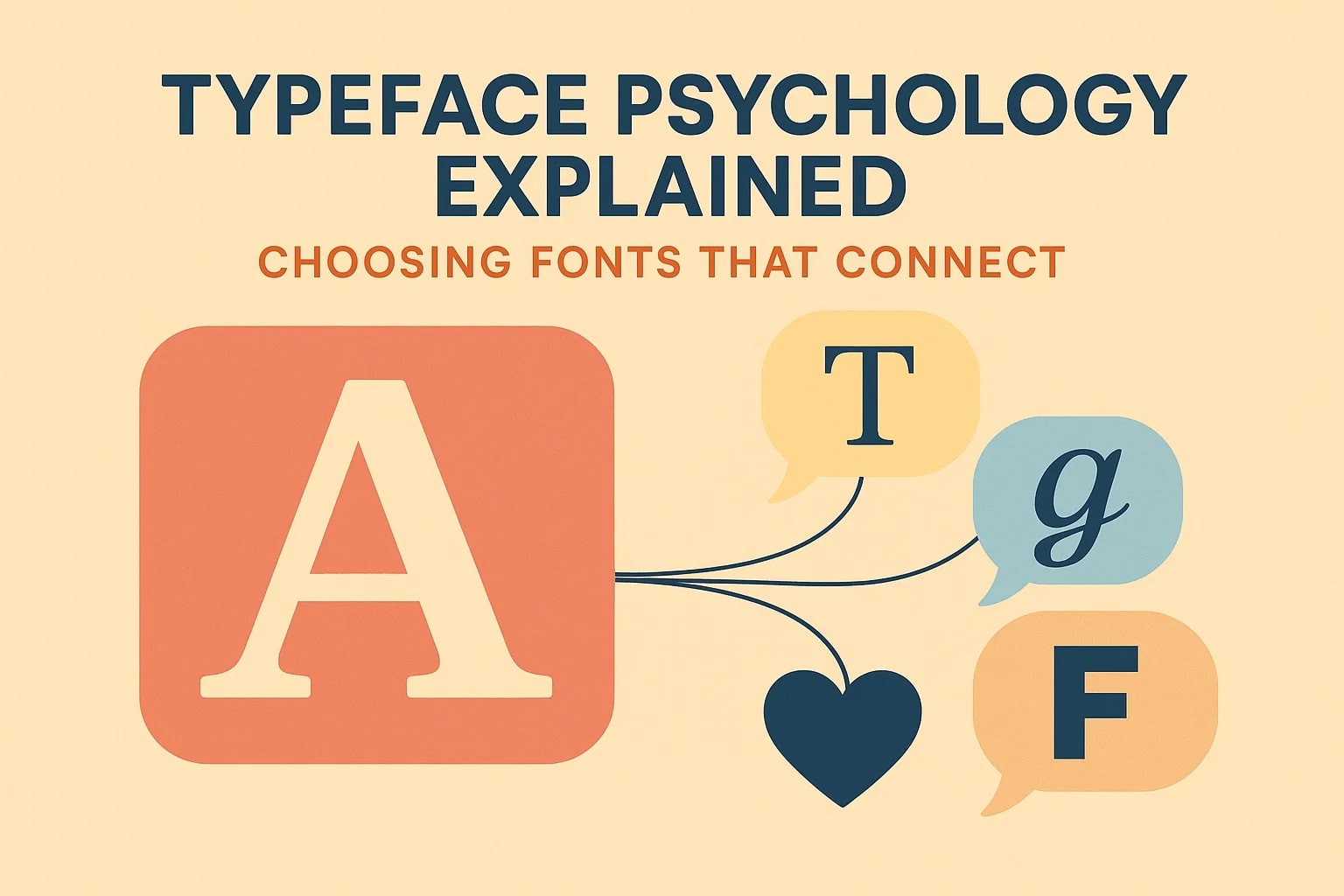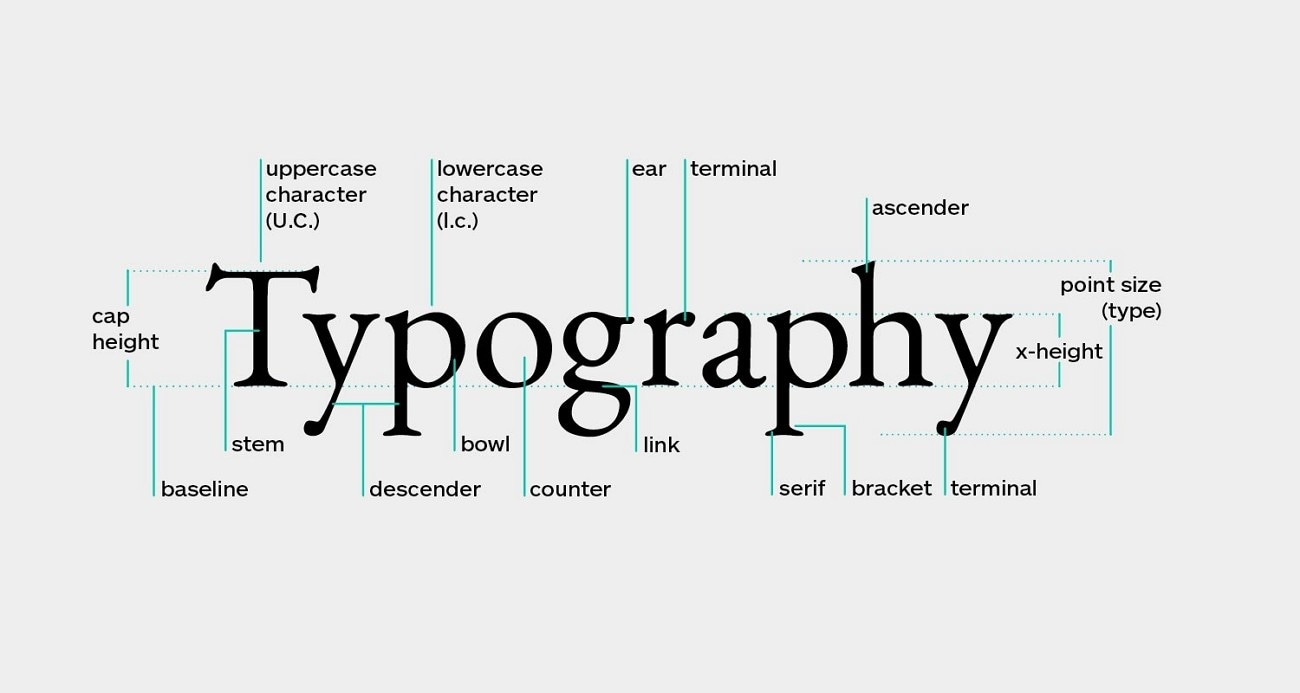
Understanding Typeface Psychology: How Fonts Influence Perception and Emotion
Understanding typeface psychology enables creators to subconsciously influence audience perception before a word is read by strategically matching font styles to core brand values.
● Choose Serif or Slab Serif fonts to establish trust and authority in traditional contexts, Sans-Serif for modern clarity in tech interfaces, and Handwritten or Script fonts to convey approachable warmth and elegance.
● Maximize readability and visual hierarchy by strictly limiting your design to a maximum of two contrasting text styles to prevent screen clutter.
Having an emotionless digital interface does not attract the desired audience. From the graphics to the text, every element in an interface has the ability to communicate. Selecting specific text designs can help you convey a message that nothing else can. By understanding the typeface psychology, we can leave an impact before the audience reads the text. The article below unlocks the powers of typeface psychology to help you communicate better.
Part 1. What is Font/Typography Psychology - The Evolution of Fonts
Just like colors trigger feelings, fonts can also make an impact. The study of how different typefaces affect a person is explored under the subject of font psychology. Typography psychology reveals that fonts are not neutral but are visuals that shape how we interpret messages. Fonts evolved from designs to key elements of conveying messages. Starting from the early 20th century, fonts have become a representative of many cultures and emotions.
Part 2. Why Does Typography Matter?
Typography serves many purposes beyond mere decoration. The following section explores the reasons why it is a key element in designing an interface:
1. First Impressions Last: Typography is often the first thing people notice about your content or brand, such as the style, size, and spacing of a font.
2. Makes a Brand that Stands Out: Fonts serve as a visual signature, making a brand recognizable and explaining its values.
3. Good for Legibility: A hard-to-read interface loses the audience's interest, but readable typography reduces strain and increases the likelihood of your audience absorbing the message.
4. Entices Emotions: The psychology of fonts carries hidden emotional cues that influence perception before the audience reads the text.
Part 3. Categories of Typefaces and Their Psychological Impact
To bring diversity into your interfaces, you can explore 8 categories of fonts. The following section covers all these typeface categories and their psychological impacts:
1. Serif
The serif typeface family is known to convey the feelings of trust among the audience. Its classic strokes reflect the ancient traditions and the eras this font style has seen. Users of the serif typeface family can also communicate a sense of authority when they use it in their designs.
• Traits: This type is a classical font with extended strokes at the ends of each letter that serve decorative and legibility purposes.
• Used In: Newspapers, books, and luxury brand advertisements
2. Sans-Serif
When studying the psychology of typefaces, the sans-serif family typically spreads the message of clarity with its clean letterforms. This straightforward family of text styles imparts honesty and accessibility to the readers.
• Traits: Group of modern and simple fonts, with no decorative strokes.
• Used In: Tech blogs and websites
3. Script
This category of fonts is the best for imparting emotions of romance with its decorate and cursive letters. There is a certain elegance and sophistication in its stylish yet readable font that evokes positivity among the viewers.
Conclusion
All in all, this blog shed light on the concept of typeface psychology and the categories of fonts. After learning the categories, we explored Filmora as a video editor to incorporate text into videos. Having a diverse collection of fonts from each category, its desktop and mobile versions serve as a reliable way of integrating and customizing text.